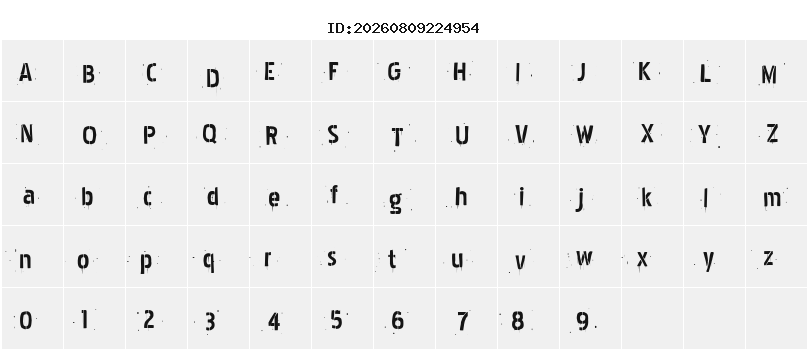
Pakenham Preview
• Font Name: Pakenham
• Font Style: Spraypaint
• Font ID: Macromedia Fontographer 4.1.4 Pakenham Spraypaint
• Full Font Name: Pakenham Spraypaint
• Version: Macromedia Fontographer 4.1.4 09/07/2001
• PostScript Name: PakenhamSpraypaint
About Pakenham.ttf
Pakenham.ttf is a modern, elegant sans-serif font designed for ultimate readability and visual harmony. Perfect for branding, headlines, web design, and print materials.